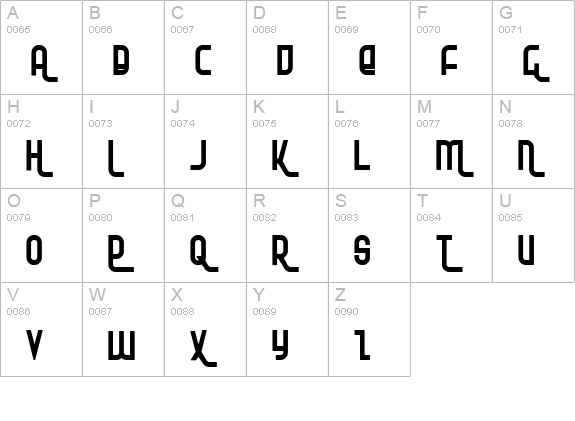
Ro'Ki'Kier Font Details
Ro'Ki'Kier font is a beautifully designed typeface that exudes elegance and sophistication. With its unique blend of modern and traditional elements, this font is perfect for a wide range of design projects, from branding to editorial design. The intricate details and intricate flourishes of Ro'Ki'Kier font add a touch of luxury and refinement to any text. What sets Ro'Ki'Kier font apart is its versatility - it can be used for both display and body text, making it a great choice for a variety of design applications. Whether you're creating a logo, a poster, a website, or any other design project, Ro'Ki'Kier font is sure to make a statement. Best of all, Ro'Ki'Kier font is completely free to download at FontsMarket.com. This means that you can start using this stunning typeface in your projects right away, without having to worry about any licensing fees or restrictions. Don't miss out on the opportunity to elevate your designs with the elegant and sophisticated Ro'Ki'Kier font - download it today and see the difference it can make!